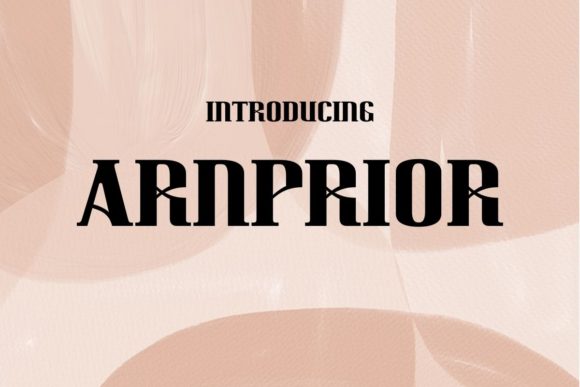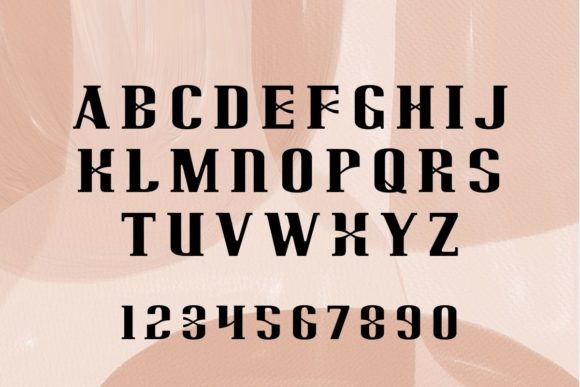
Arnprior is a decorative font with a modular exploration of ornaments in lieu of strokes. The wavy crossbars create rhythm and a trendy look which will make any of your projects, posters, and business elements stand out!